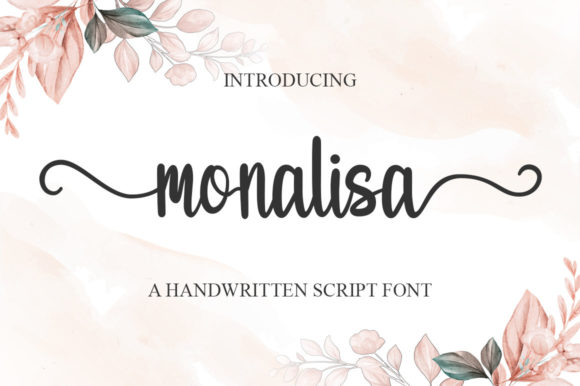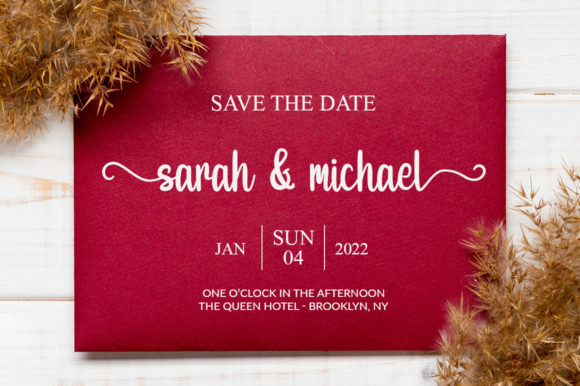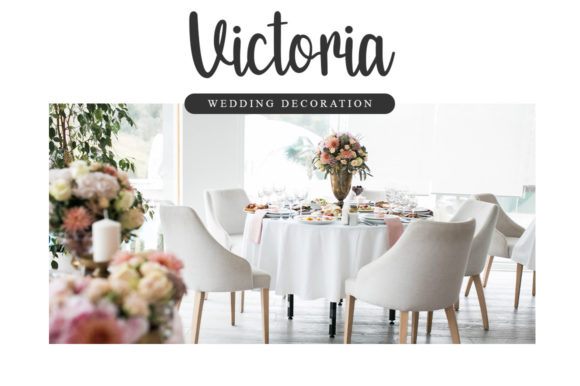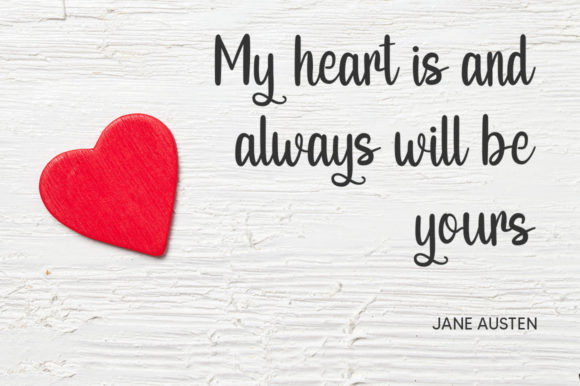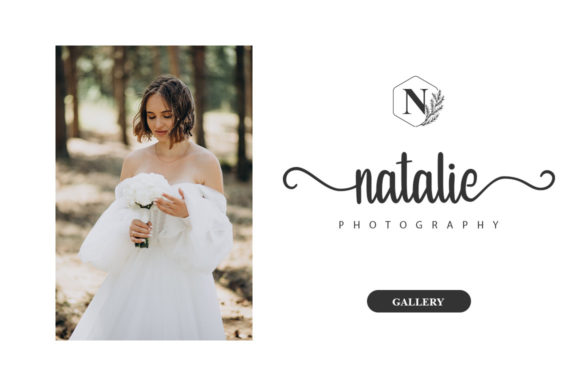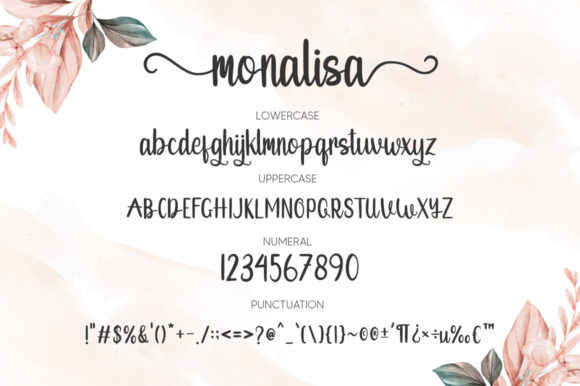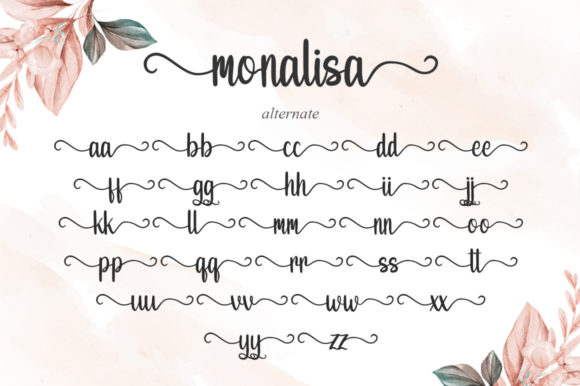
Monalisa Font
About Monalisa Font
Monalisa is a fine, ageless and distinct handwritten font. It has well balanced characters and as a result, it matches a wide pool of designs. This font is PUA encoded which means you can access all glyphs and swashes with ease!